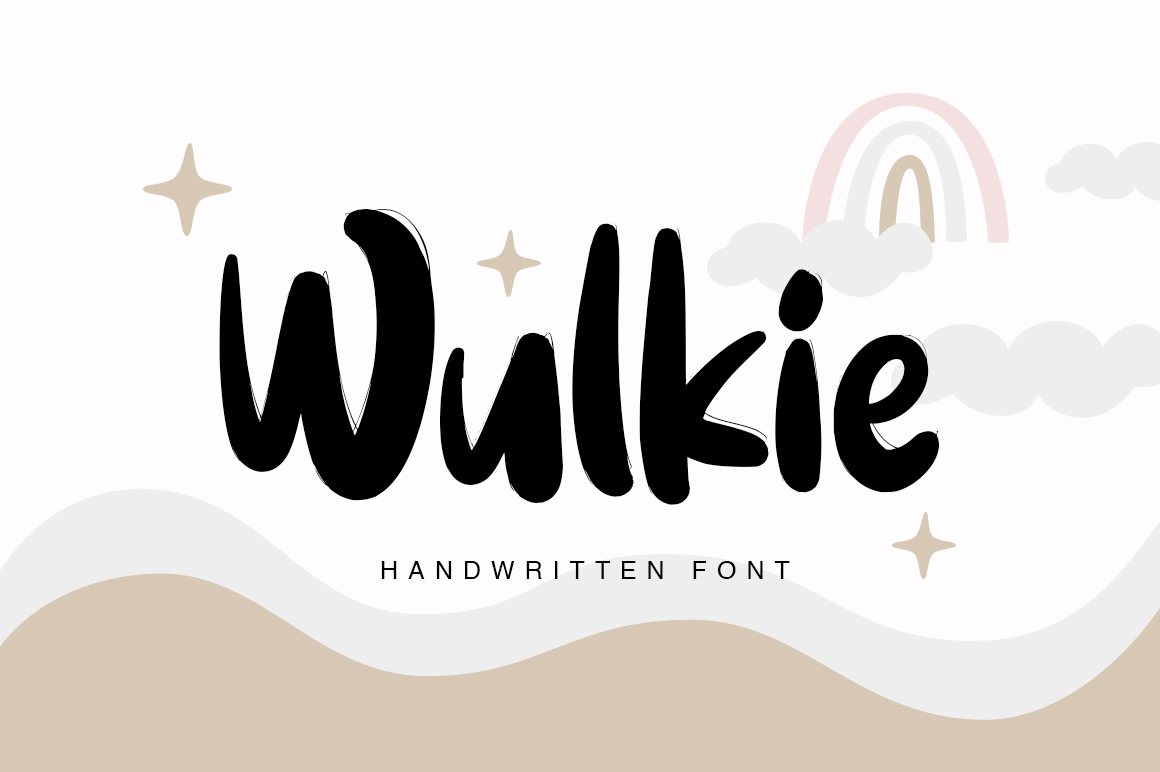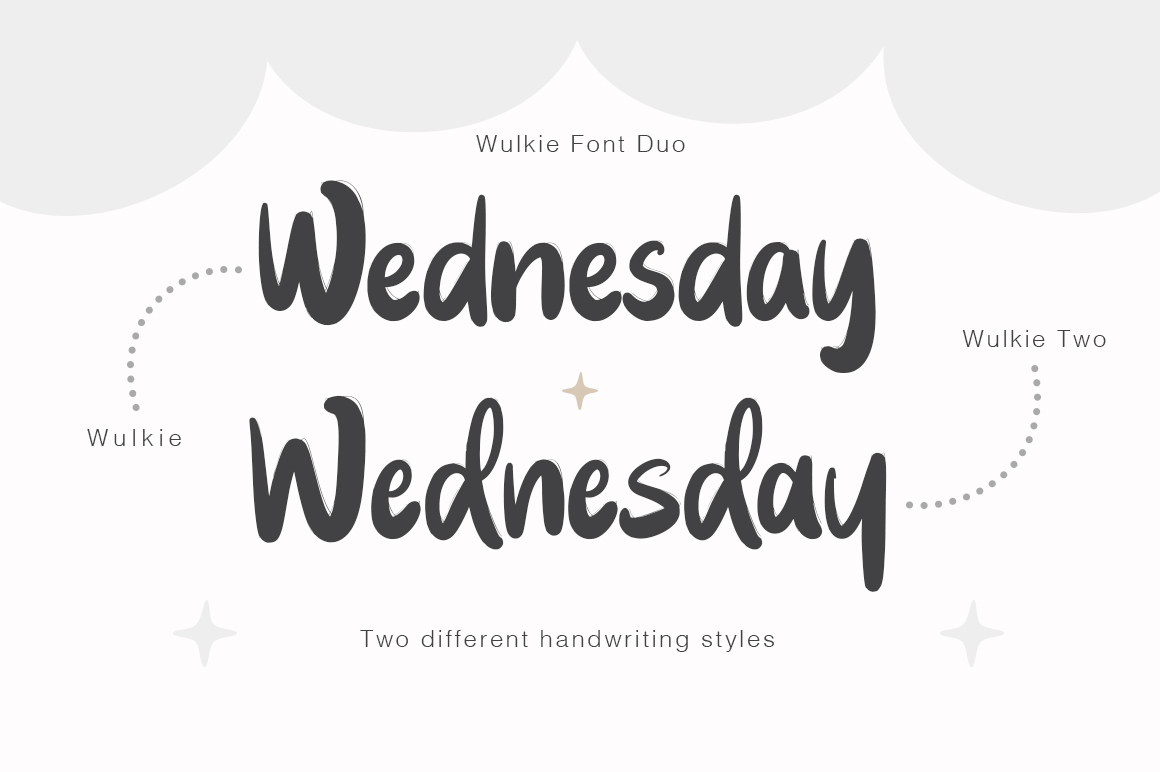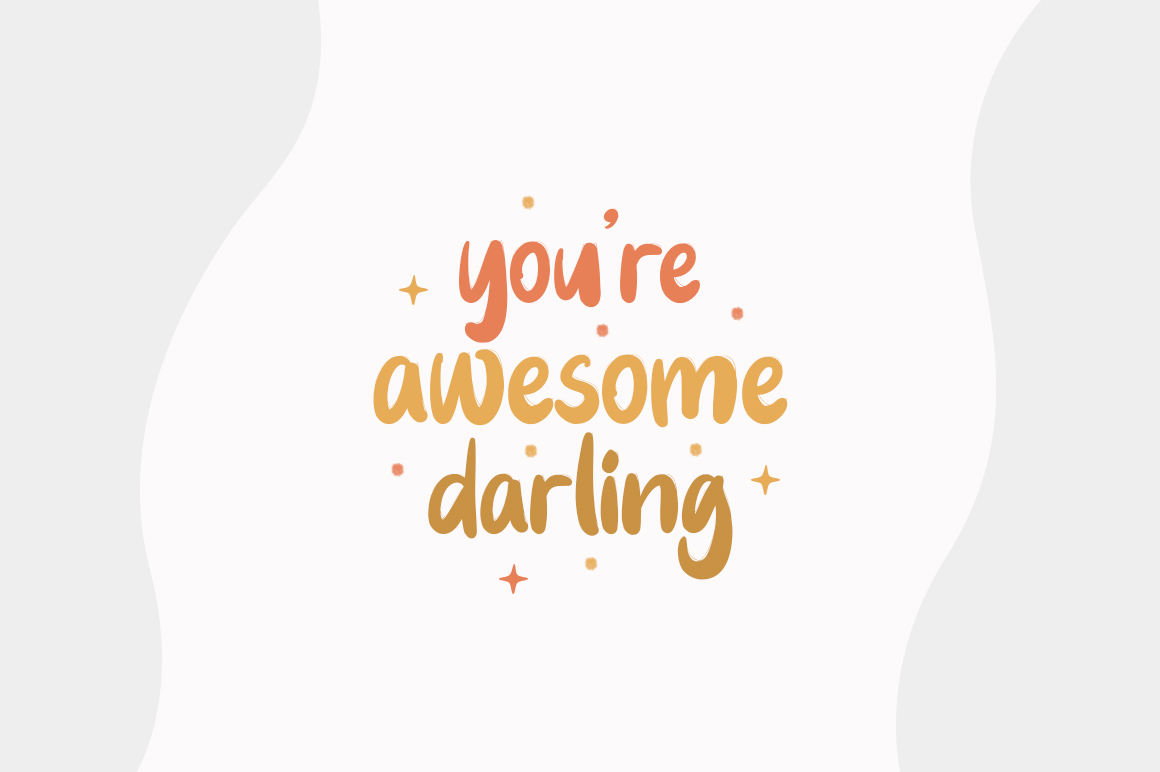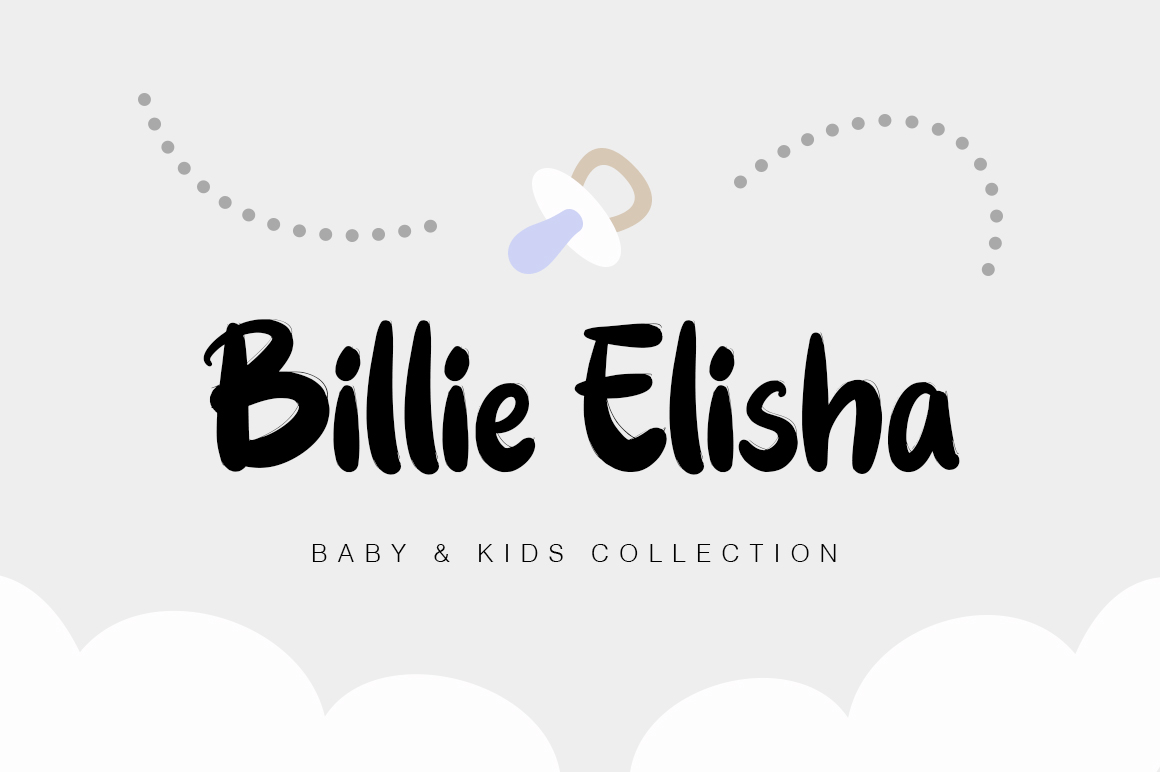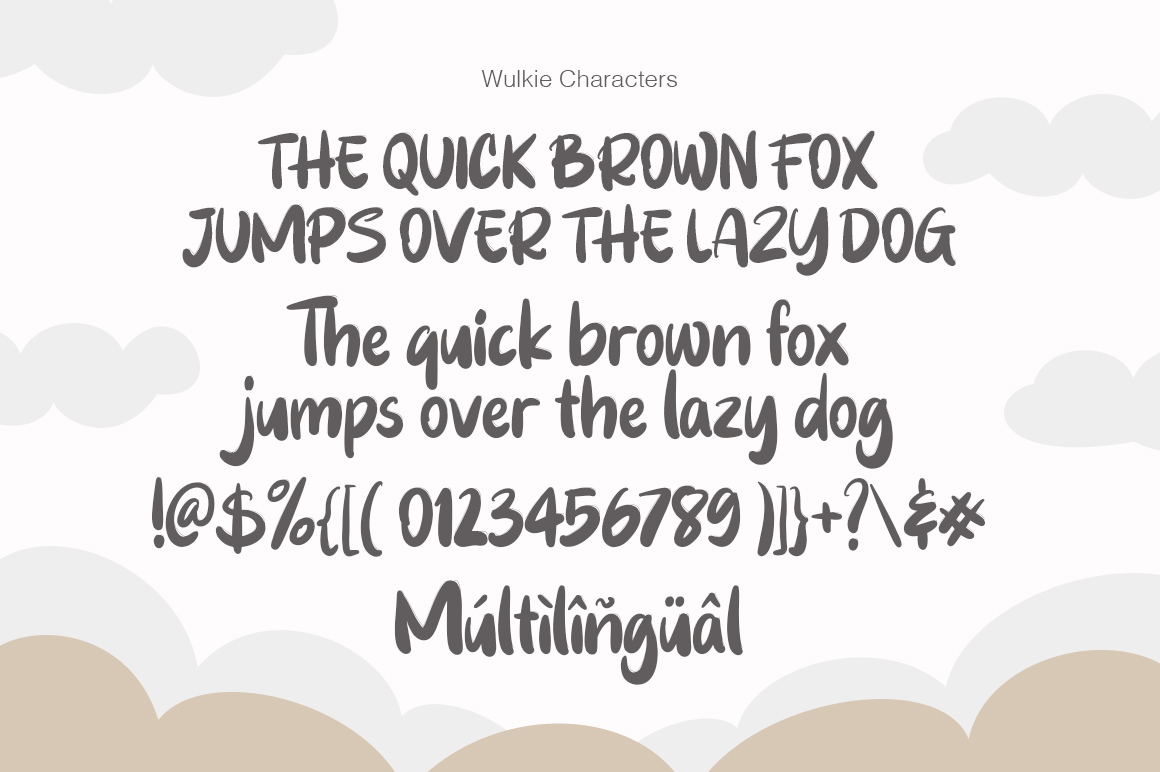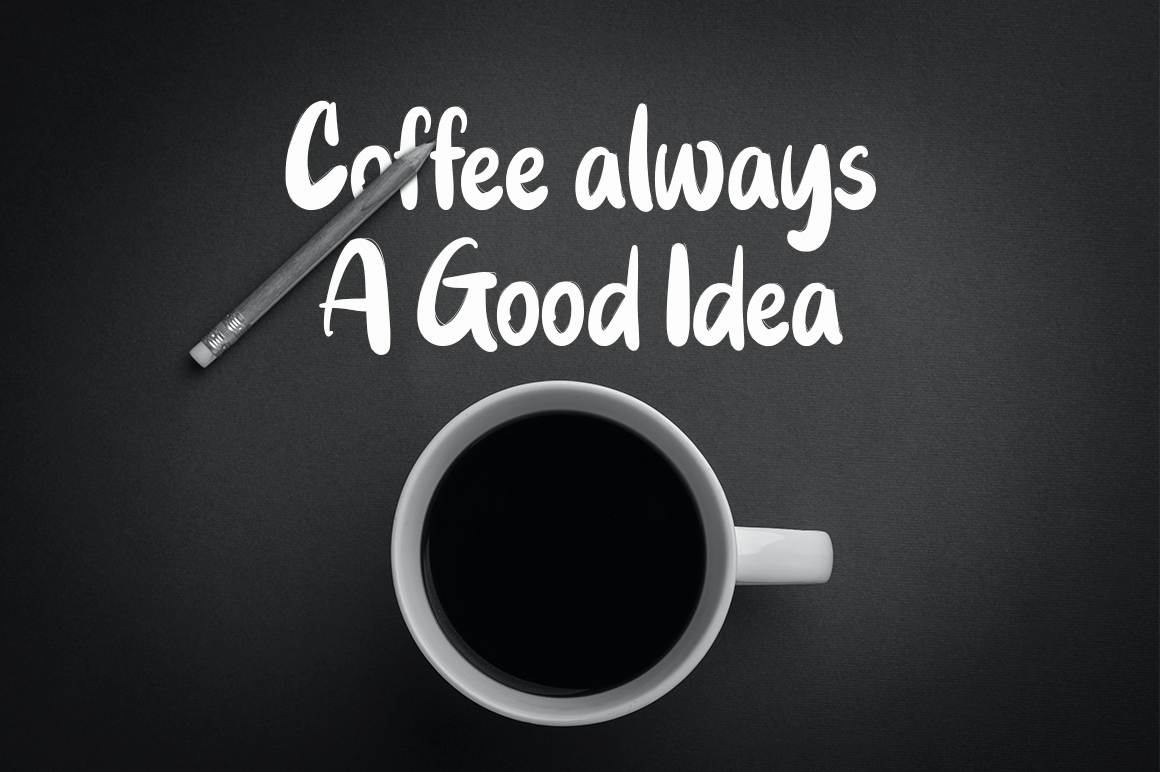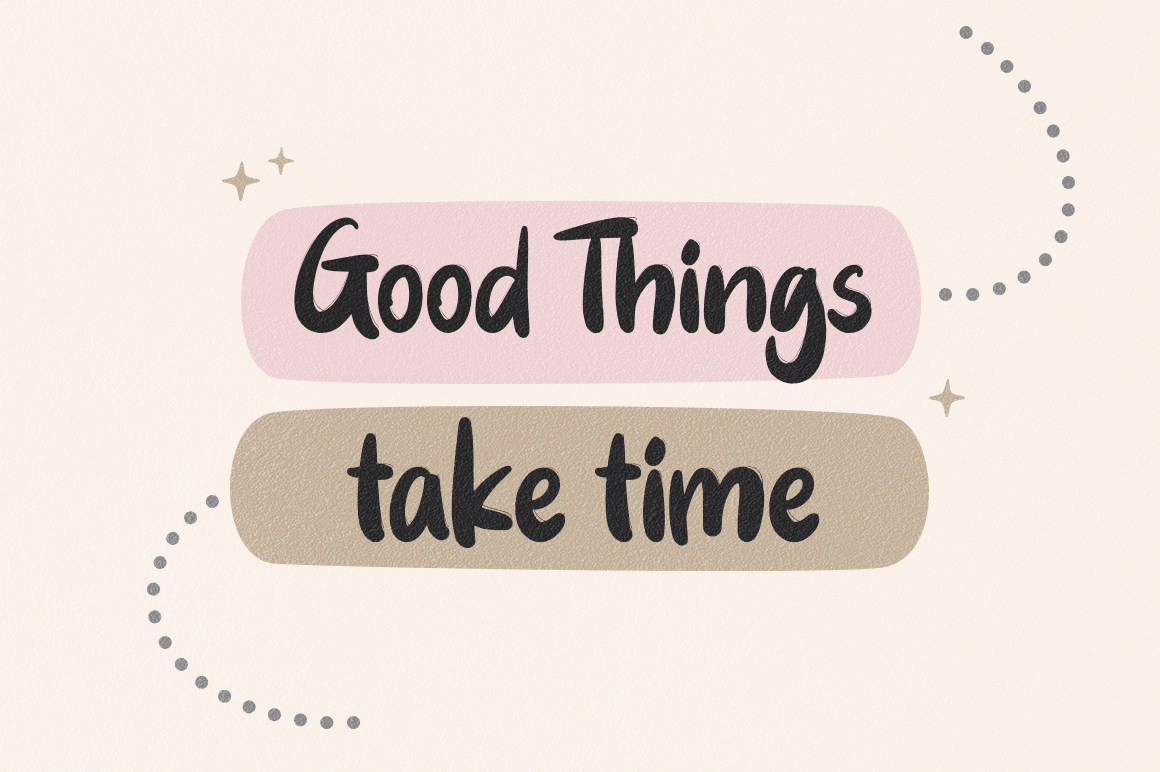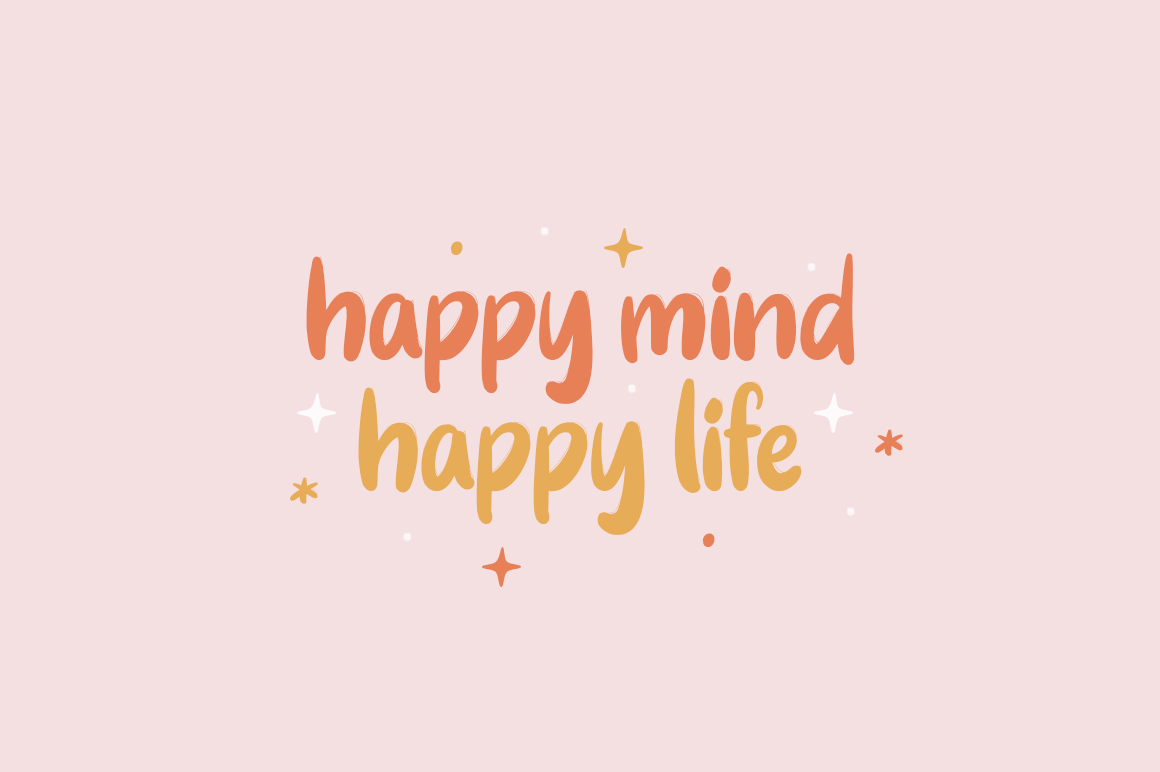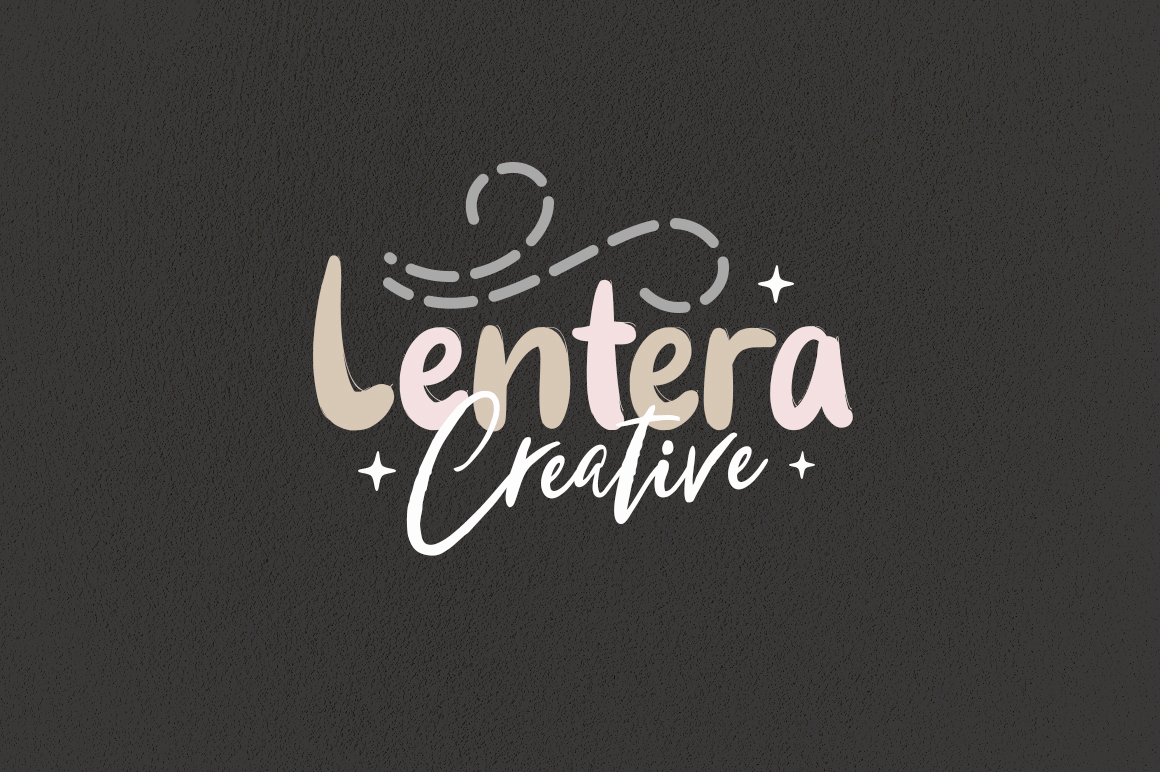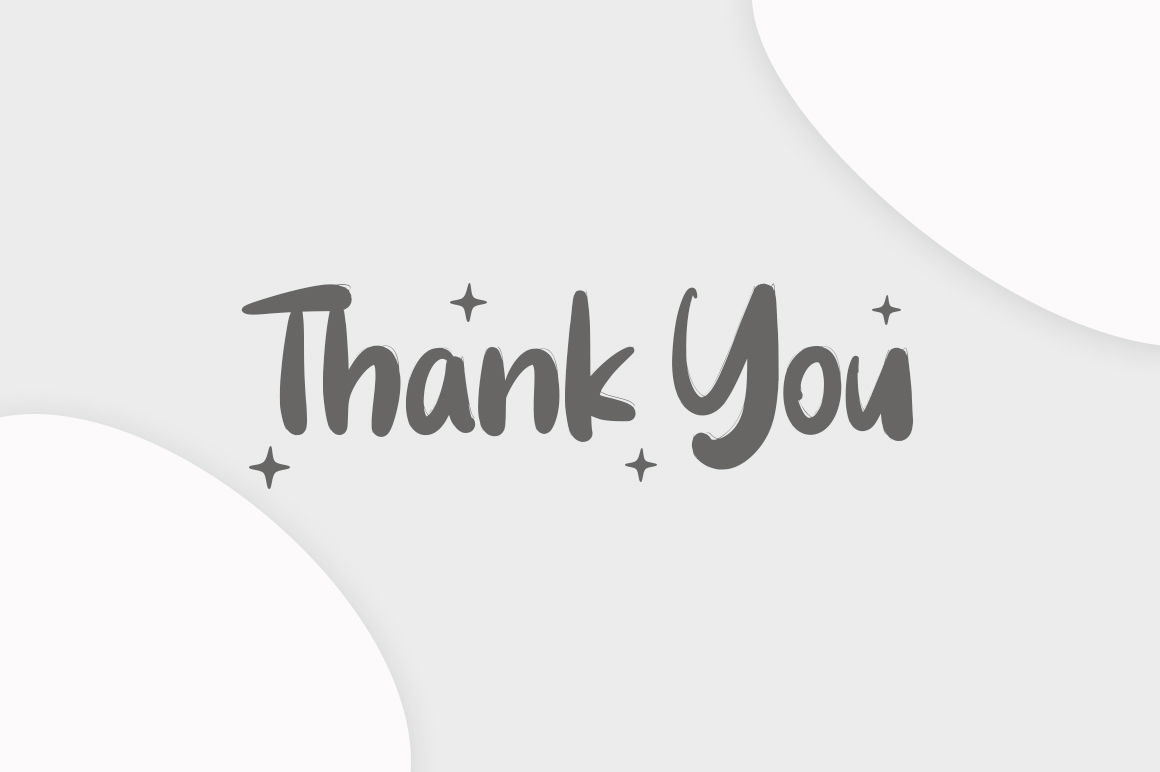
Wulkie
Font Family by Fargun Studio
Wulkie Font is handwritten stylish fonts, combines from copperplate to contemporary typeface with a dancing baseline, classic and elegant touch. Can be used for various purposes. such as headings, signature, logos, wedding invitation, t-shirt, letterhead, signage, label, news, posters, badges etc.